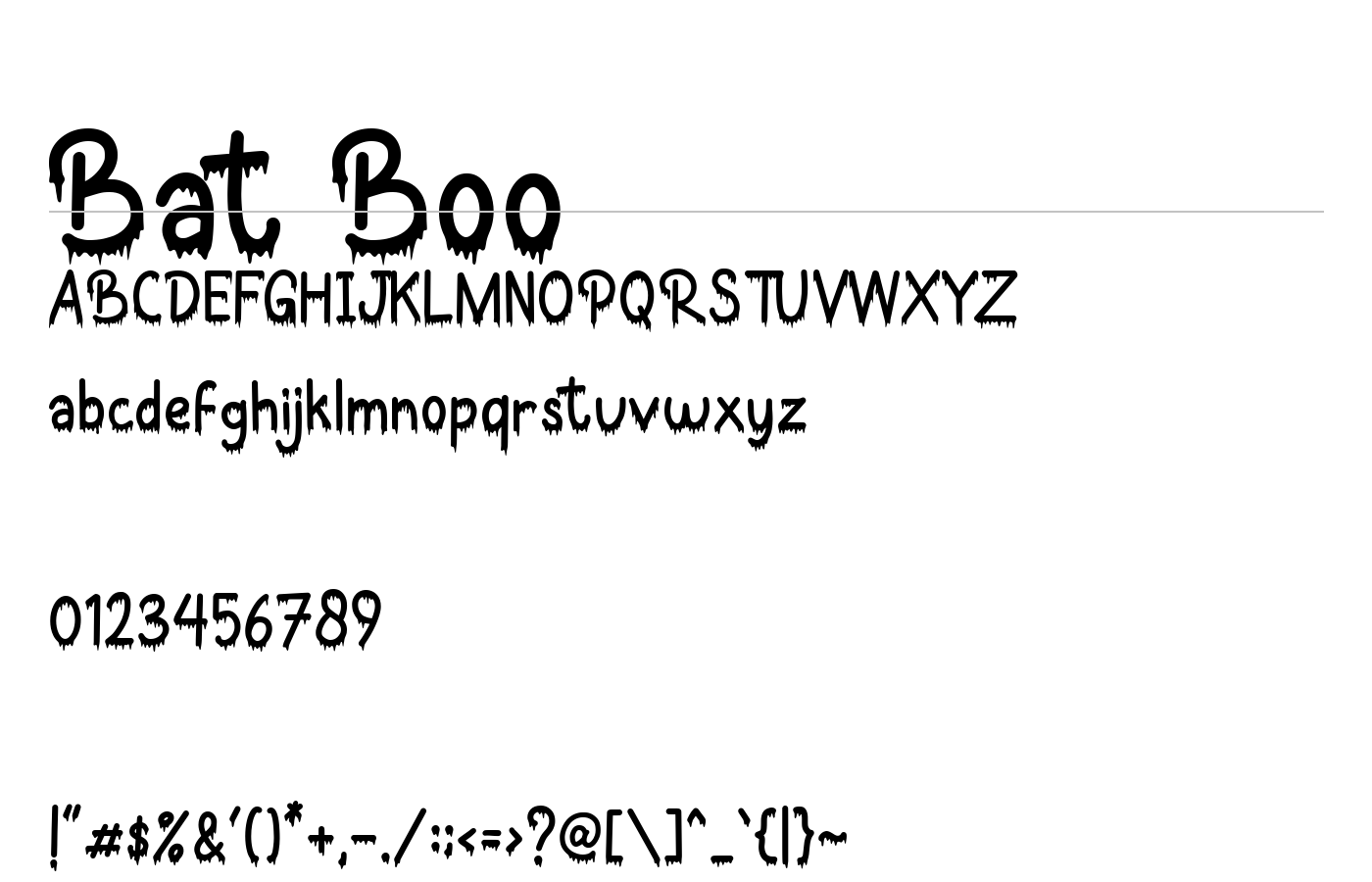
Bat Boo is a playful and spooky sans serif font featuring irregular, dripping edges that give it a Halloween or horror-themed vibe. Its quirky, uneven letterforms combined with medium weight and tight spacing create a fun yet eerie personality, making it perfect for seasonal designs, posters, and branding that aim to capture a spooky, whimsical mood. This font works best in headlines and decorative uses where its unique style can stand out and add character.
Bat Boo Font
About Bat Boo Font